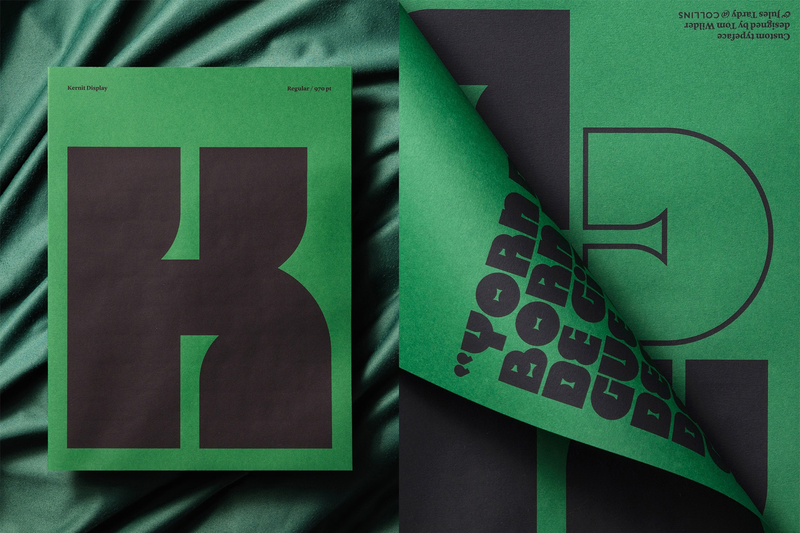
Kernit Is the Jim Henson-Inspired Typeface Muppet Fans Deserve
Why are there so many songs about rainbows, but so few typefaces that evoke the iconic pupils of Kermit the Frog? Thankfully for Muppet fans, we now have at least one: Kernit.
Kernit is a loveably bizarre, psychedelic typeface available for free in two styles: bold and outline. According to its creators, the designers at MCKL and COLLINS, Kernit is “meant to capture the same imagination, fun and whimsy which we came to love in Henson’s vivid work.”
The design was originally intended for a Jim Henson exhibition at New York’s Museum of the Moving Image (a very cool museum in Queens worth checking out if you ever get the chance to visit). Its name, “Kernit,” is presumably both a reference to the beloved frog and the typographical term “kerning,” or how designers adjust the spacing between individual letters.